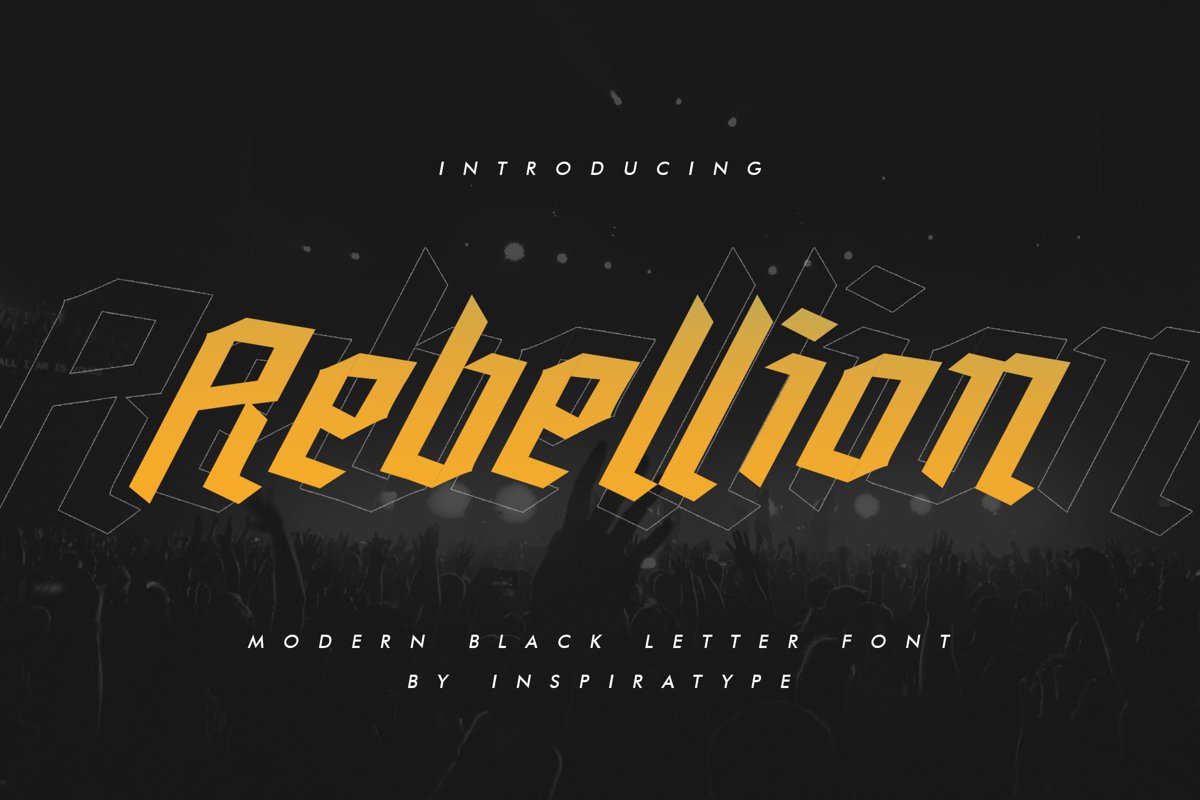
Rebellion - Modern Blackletter
Rebellion
"Rebellion" is a font display that is made by hand, inspired by classic posters.
comes with uppercase, lowercase, numerals, punctuations and so many variations on each character include OpenType alternates, common ligatures and also additional swash to let you customize your designs. Perfect to use for Logotype, Letterhead, Poster, Apparel Design, Label and etc.